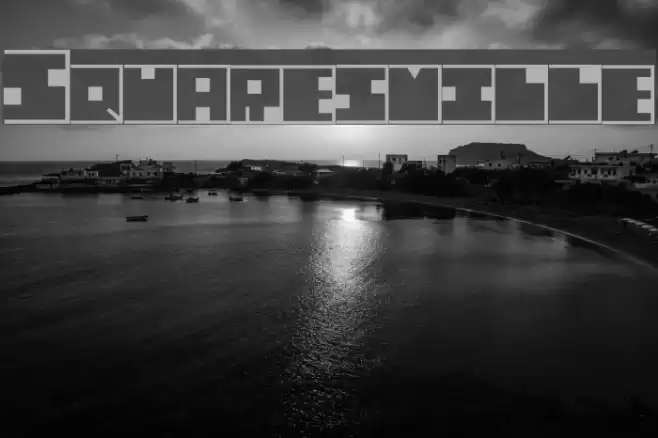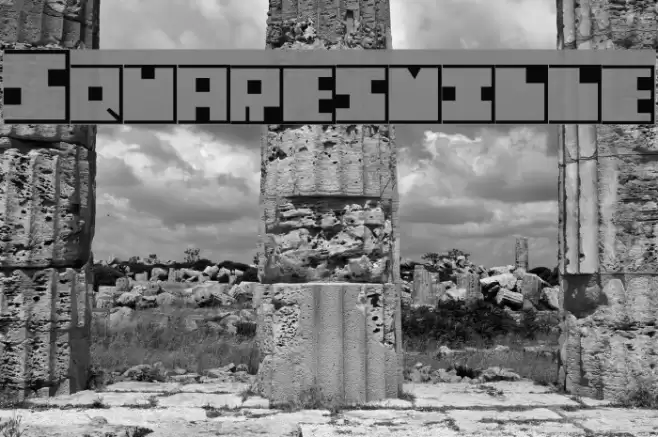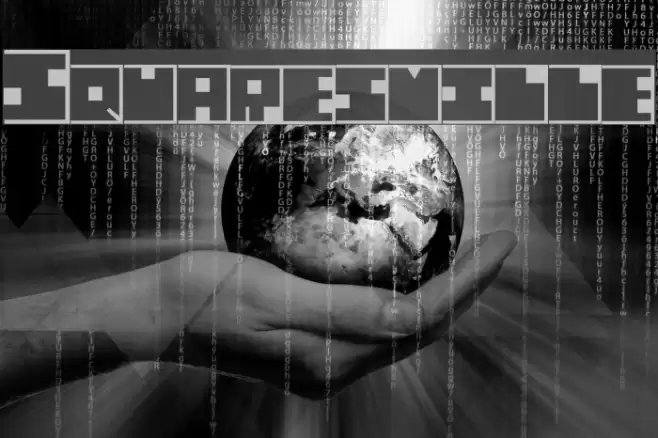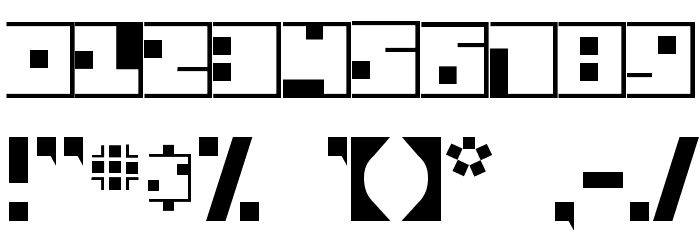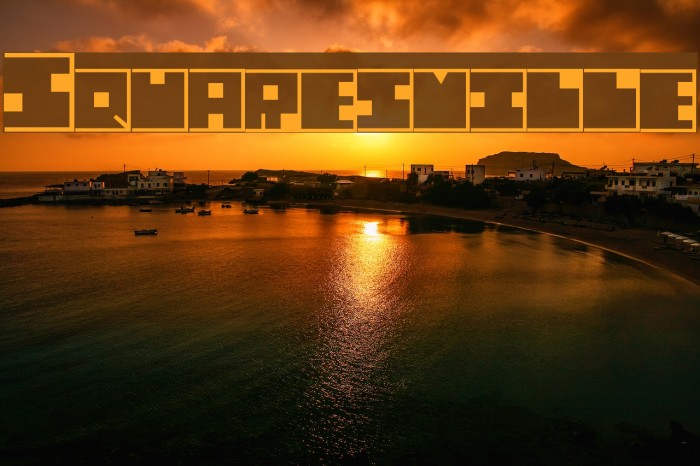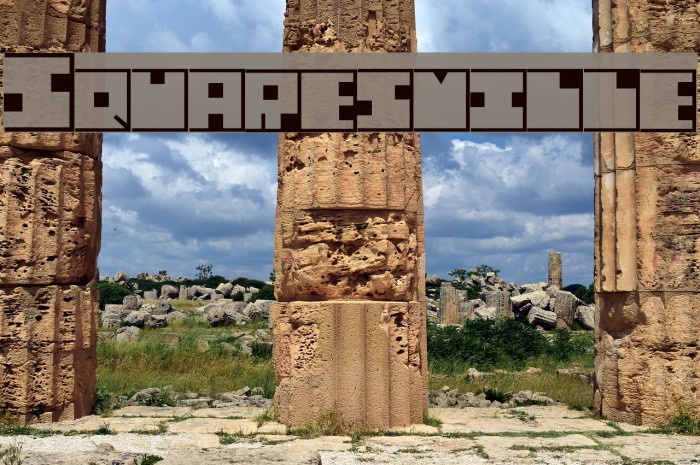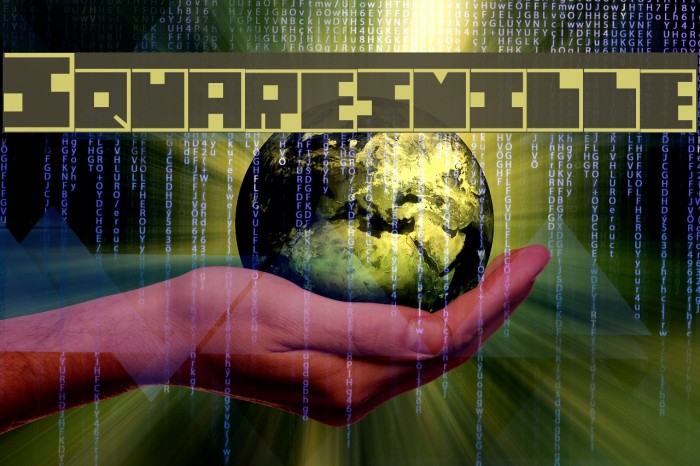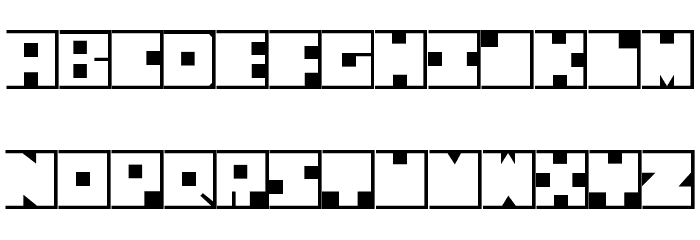
Squaresville Font
Squaresville Description
This font features a bold, geometric style with each character fitting into a square shape, creating a uniform and structured appearance. The design is highly angular, with sharp edges and a blocky aesthetic that gives it a modern and industrial feel. The uppercase and lowercase letters are distinct yet maintain the same square-based structure, ensuring consistency across the typeface. Numbers and special characters follow the same design principles, making the font versatile for various uses. The high contrast between the thick strokes and the negative space within each character enhances readability while maintaining its unique style.
A bold, geometric font with a square, blocky design and high contrast from 3D fonts.
- Proposed Projects: Ideal for modern branding, tech-related projects, posters, and digital media where a strong, futuristic look is desired.